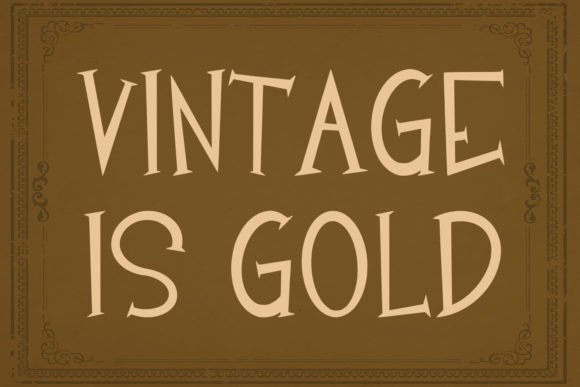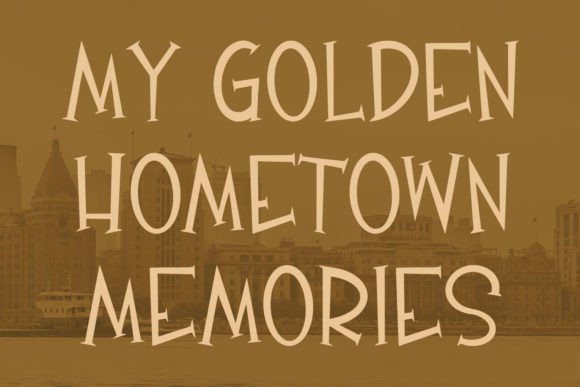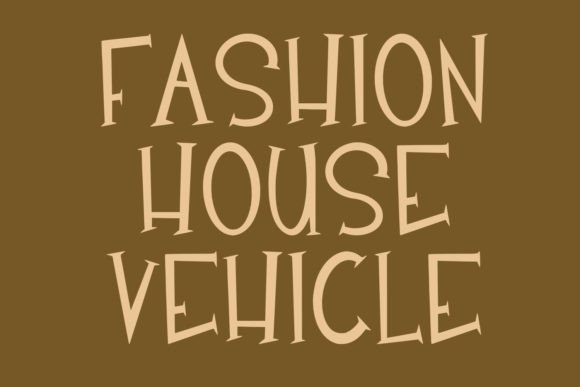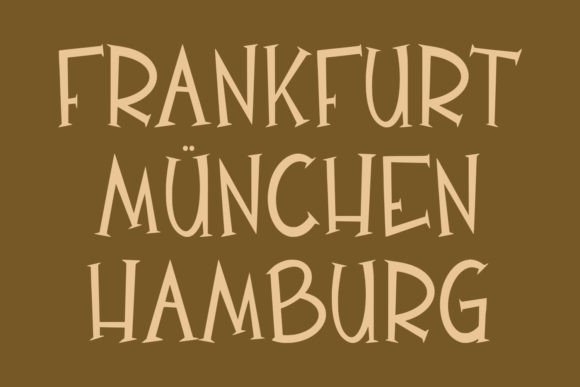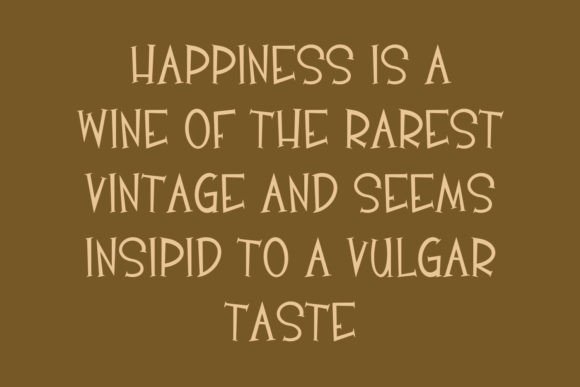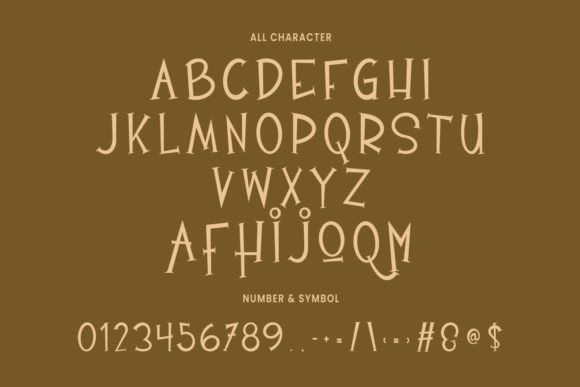
Introduction to Minosh Font Font
Fonts play a crucial role in design, and the Minosh Font font is a typeface that brings both character and versatility to any project. Whether you’re working on a branding project, a website, or a print design, the Minosh Font font offers a unique style that can elevate your work.
Minosh is a classic vintage display typeface that brings a touch of timeless elegance to your projects.
With its unique character and old-school charm, this font adds a nostalgic flair to any design Perfect for creating eye-catching headlines, logos, or posters, Minosh effortlessly blends a sense of history with a stylish edge.
Key Features of Minosh Font Font
Why Choose Minosh Font Font?
The Minosh Font font is more than just a typeface – it’s a design tool that helps you communicate your message with style and clarity. Its unique character set and versatile design make it suitable for a wide range of applications, from elegant invitations to bold headlines.
With its carefully crafted letterforms and balanced proportions, the Minosh Font font ensures readability and visual appeal across all mediums.
What makes Minosh Font font special?
The Minosh Font font stands out with its unique design, exceptional readability, and versatility across various design applications.